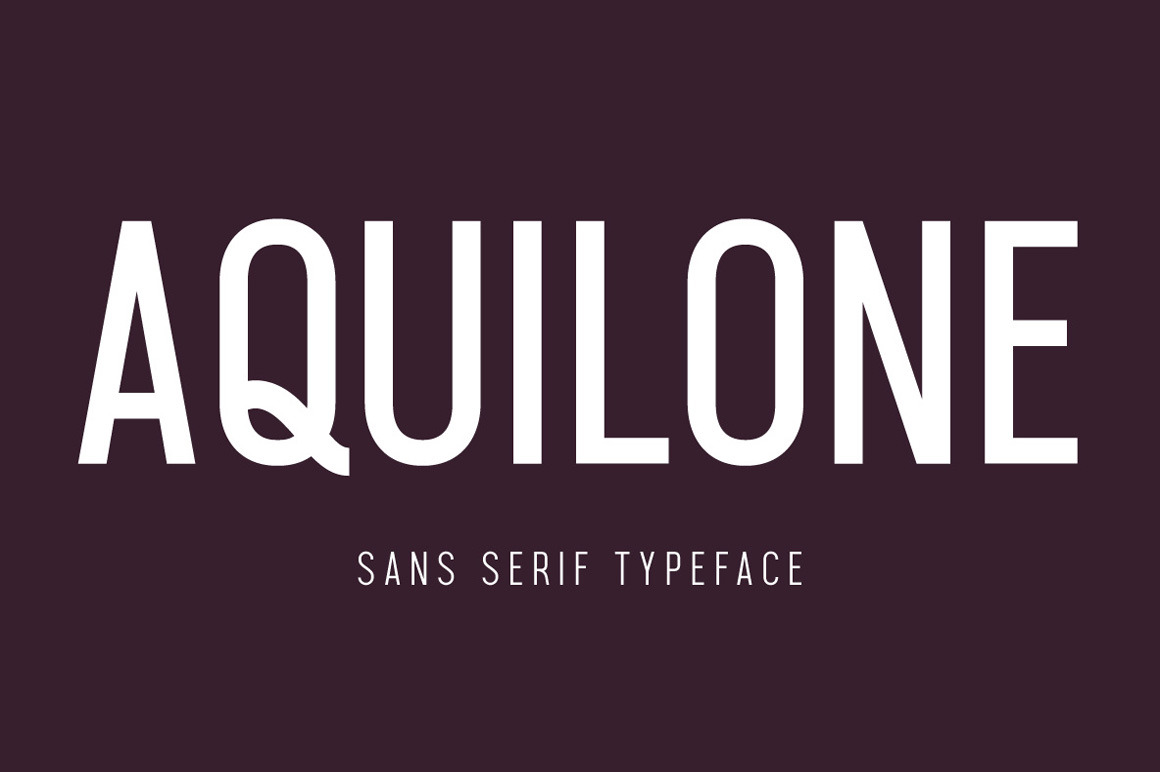
AQUILONE font
Aquilone is a condensed geometric sans serif typeface, simple and functional. It includes stylistic alternates and multiple language support.